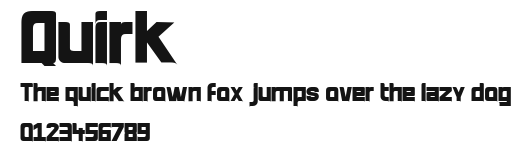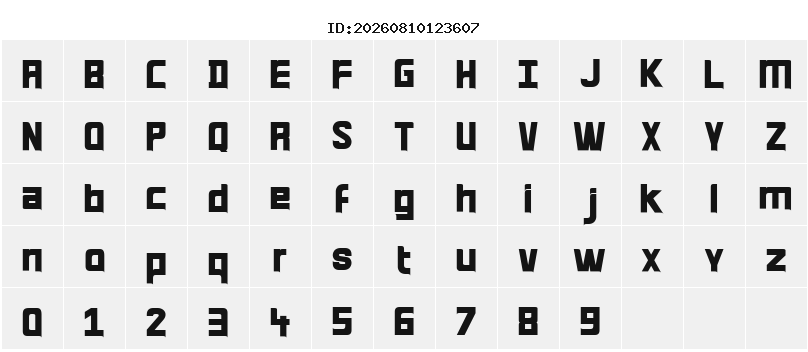
• Font Name: Quirk
About Quirk.ttf
Quirk.ttf is a modern, elegant sans-serif font designed for ultimate readability and visual harmony. Perfect for branding, headlines, web design, and print materials.